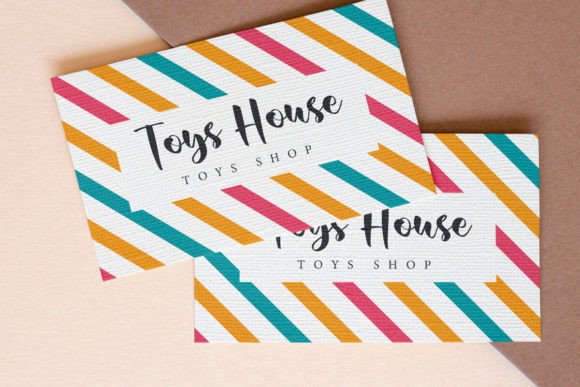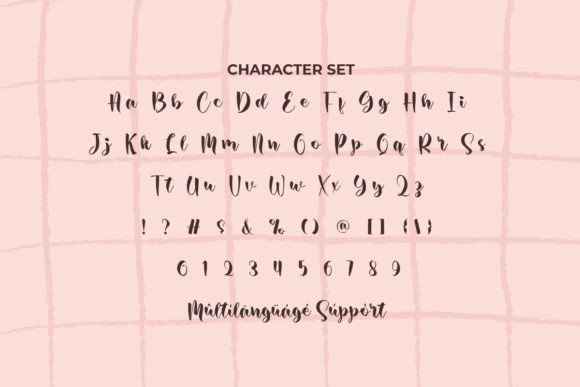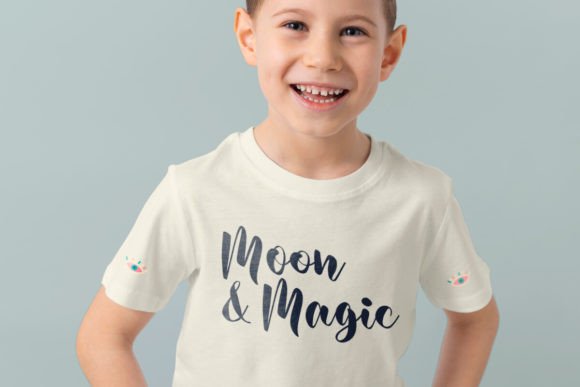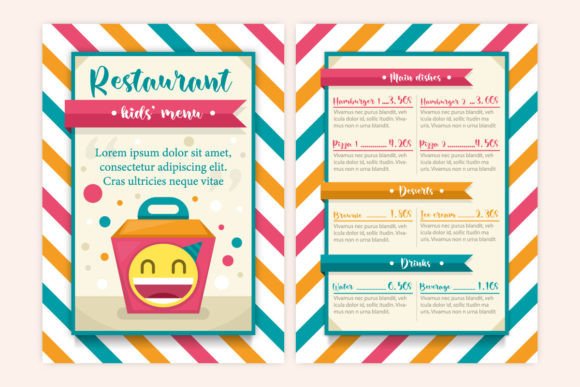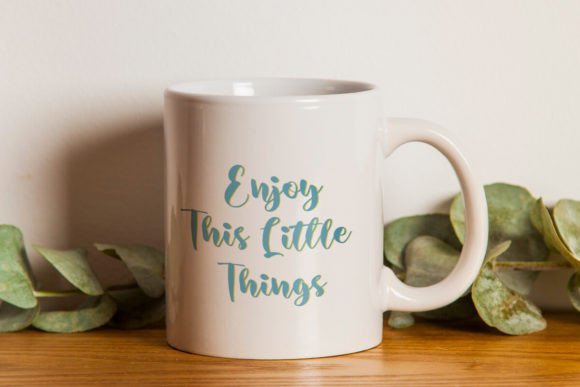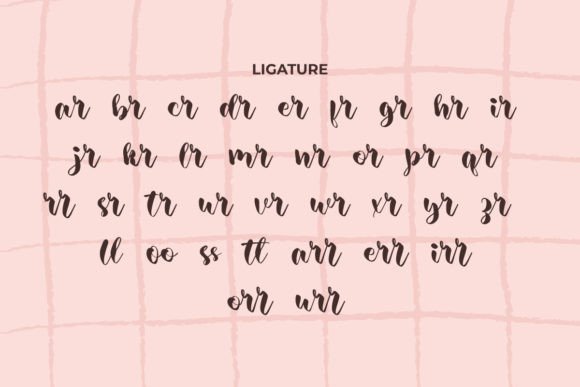
Unleash the Joy of Handwriting in Your Designs
Do you ever find yourself staring at a blank page, pencil in hand, trying to capture the perfect handwritten look for your next design project? I know I do. It’s that magical moment when creativity meets personality, and the right font can make all the difference. Enter the Baby Brushes Font, a delightful calligraphy script designed by NoahType that’s sure to bring a smile to your face and a touch of whimsy to your designs.
| 📌 Product Name | Baby Brushes Font |
| 👤 Author | NoahType |
This charming font is perfect for adding a personal touch to various projects, from business cards and custom designs to invitations and product packaging. With its cheerful and playful vibe, the Baby Brushes Font is a valuable addition to any designer’s toolkit, offering endless possibilities for creative expression and self-expression. Whether you’re a seasoned pro or just starting out, this font is sure to inspire your next design project and bring a little bit of joy to the process.
Baby Brushes Font Key Features
- Font Family: Baby Brushes
- Character Count: 250+ glyphs
- Unique Characteristics: Hand-painted, Brush-style, Whimsical, Vintage-inspired
Baby Brushes Font Review
Overall, I found Baby Brushes Font to be a unique and charming option for designers looking for a playful, hand-drawn feel.
- Quirky and whimsical aesthetic that’s perfect for kids’ content, nursery decor, or other lighthearted projects.
- Well-suited for titles, headings, and short phrases where a touch of personality is desired.
- Includes a range of styles and weights to accommodate different design needs.
- May not be the best choice for complex or formal content due to its playful nature.
- Some characters, such as the lowercase ‘a’ and ‘e’, may require manual adjustment or tweaking to achieve desired results.
- Not as versatile as other fonts for use in body text or large blocks of text.
In conclusion, Baby Brushes Font is a delightful addition to any designer’s toolkit, but it’s essential to understand its limitations and use it accordingly. When used effectively, it can add a touch of warmth and personality to your designs.
Getting the Most Out of Baby Brushes Font
For the best results, use the Baby Brushes Font in conjunction with other playful and whimsical design elements, such as pastel colors and cute illustrations.
Experiment with different font sizes and styles to create visual interest and emphasize key messages.
The Baby Brushes Font is ideal for:
- Children’s book covers and illustrations
- Infant and toddler product branding
- Playful social media graphics and ads
Alternatives to Baby Brushes Font
Carolyna Pro Font is a modern and elegant script font that is perfect for creating a sophisticated and luxurious feel in your designs. It is ideal for use in branding, packaging, and other high-end applications where a touch of elegance is needed. Compared to Baby Brushes Font, Carolyna Pro Font has a more modern and sleek look, making it suitable for a wider range of applications.